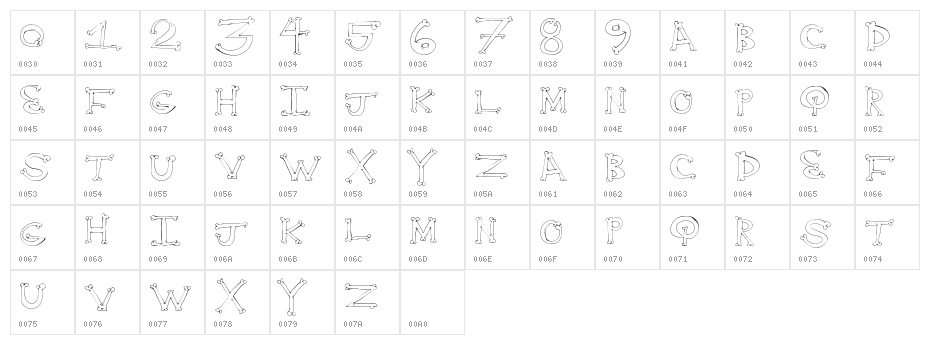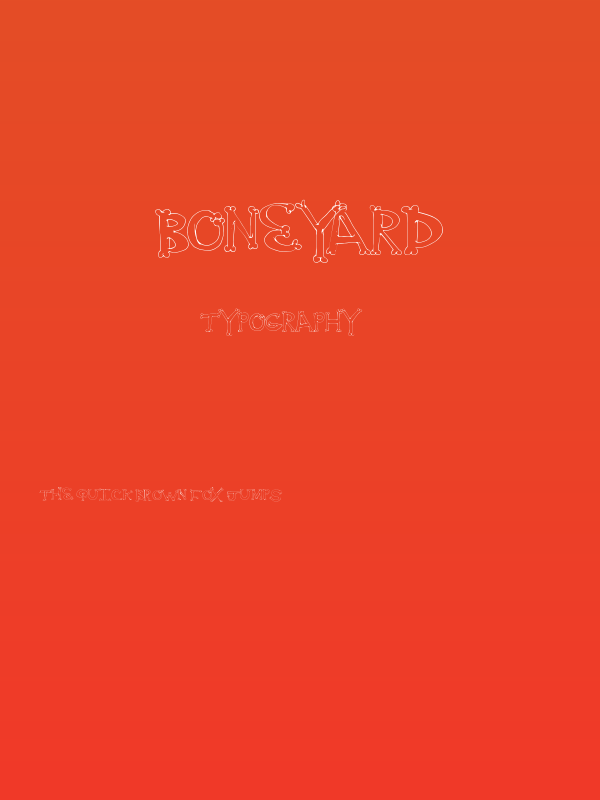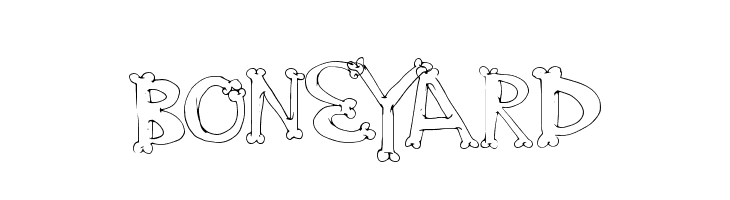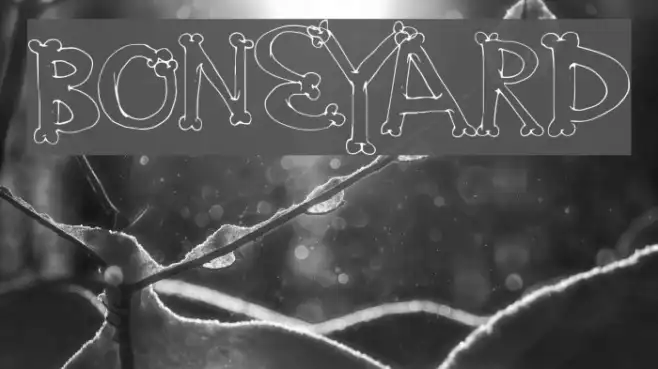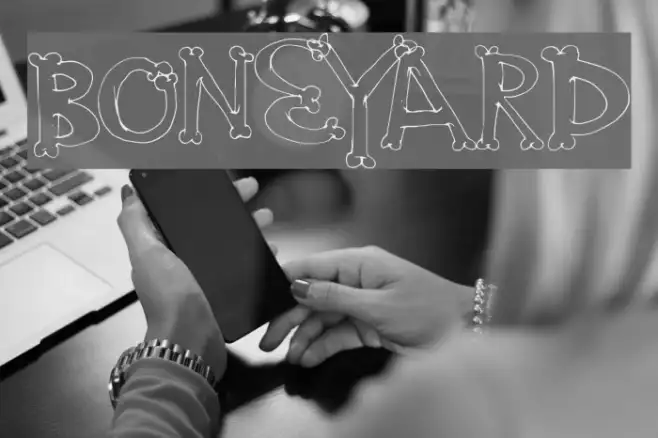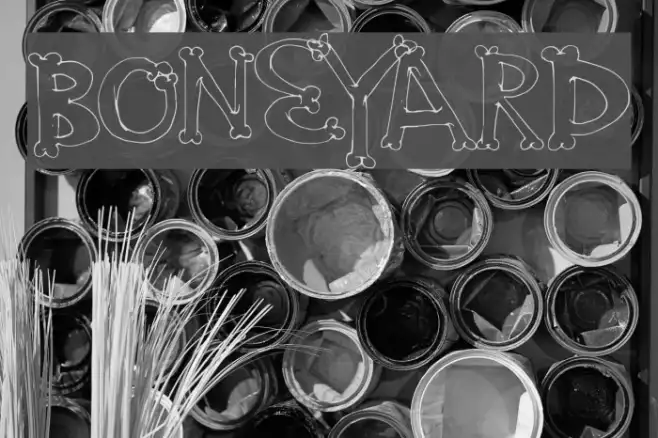
BoneYard Font
BoneYard Description
This playful and thematic font features characters designed to resemble bones, giving it a unique and quirky appearance. Each letter and number is crafted with a skeletal structure, complete with joints and bone-like extensions, creating a cohesive and visually engaging style. The font maintains a consistent line weight throughout, ensuring readability while still embracing its decorative nature. The spacing between characters is normal, allowing for clear legibility despite the intricate design. This font is perfect for projects that require a fun and spooky aesthetic, such as Halloween-themed invitations, posters, or children's book titles. Its distinctive style makes it stand out, adding a touch of whimsy and creativity to any design.